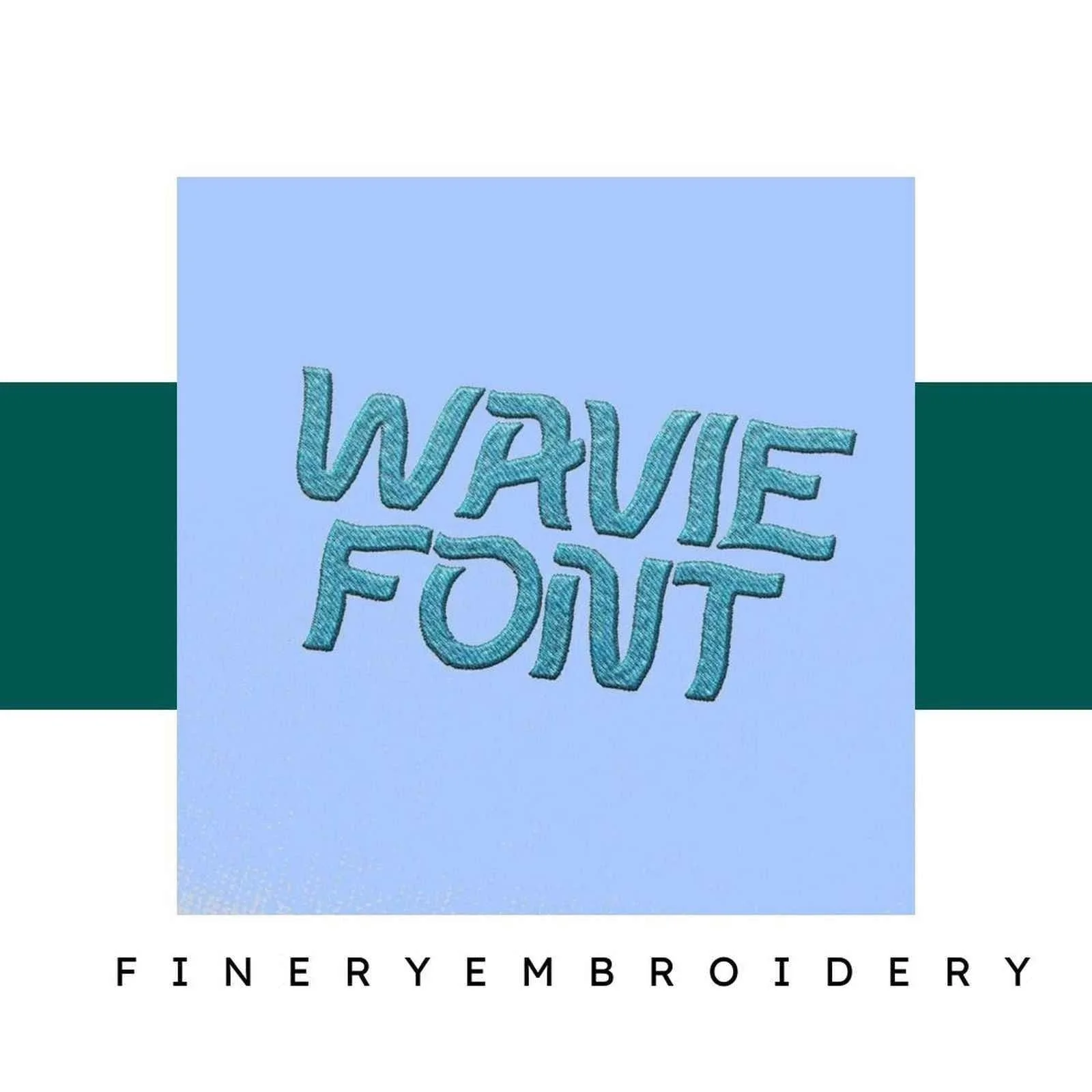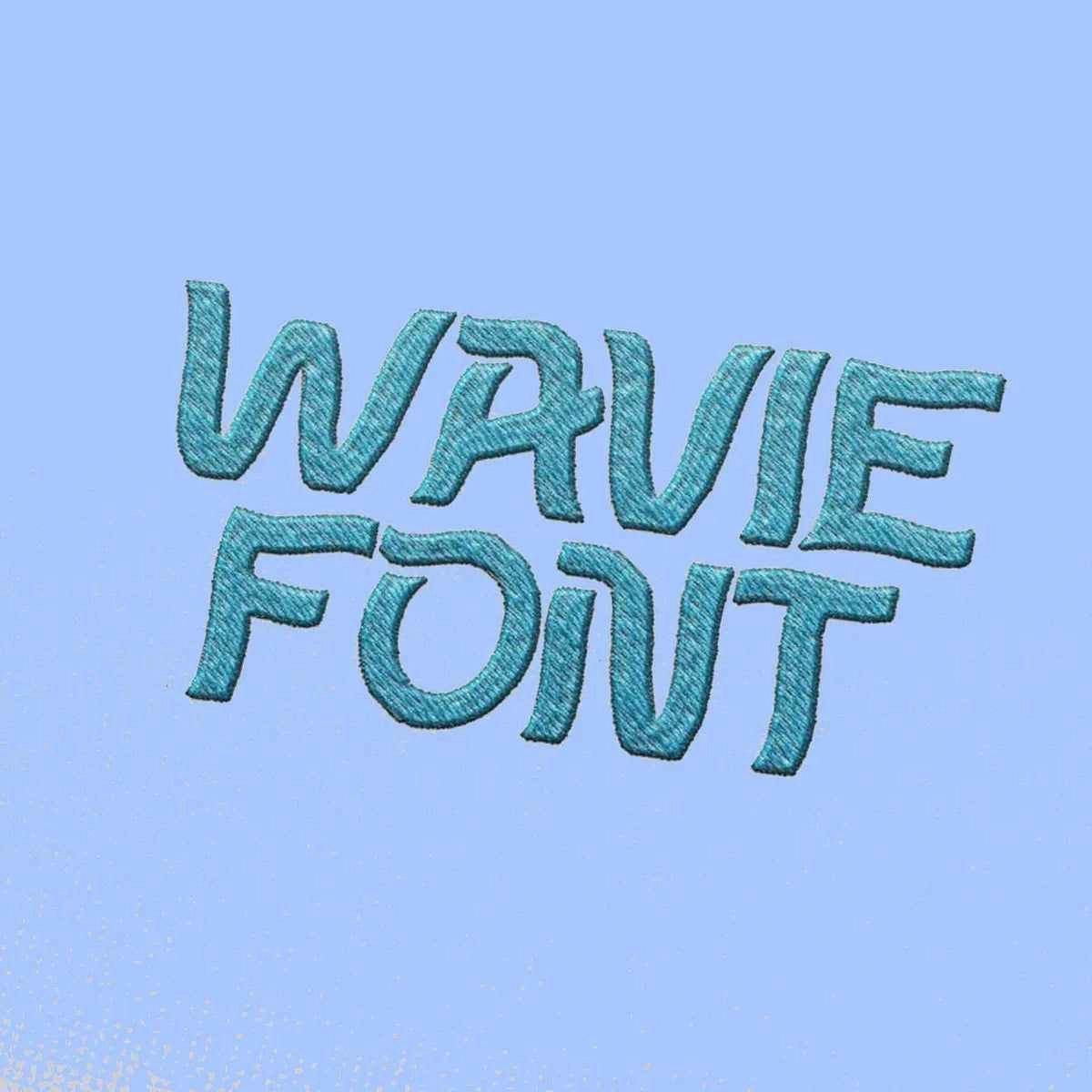
Wavie Embroidery alphabet Font Set
Unleash your creativity with the Wavie Embroidery Alphabet Font Set – a world of elegant designs awaits your embroidery machine!
Welcome to the enchanting world of the Wavie Embroidery Alphabet Font Set! This exquisite collection of elegant and high-quality embroidery designs is here to elevate your projects and inspire your creativity. Whether you’re embellishing clothing or personalizing gifts, this versatile font set will add a sophisticated touch to all your creations.
The Wavie Embroidery Alphabet Font Set is meticulously crafted to provide you with unique and intricate designs. With every letter, you get an artistic expression that enhances your projects, giving them a refined look that stands out. Imagine the delight of seeing your initials or favorite quotes beautifully rendered in this elegant font—it's a true game changer!
The possibilities with the Wavie Embroidery Alphabet Font Set are endless! Use it to personalize clothing, create stunning home décor, or craft memorable gifts for loved ones. This set is perfect for custom pieces that reflect your personality or that of the recipient. No matter the project, your creativity will shine through with these sophisticated designs.
At FineryEmbroidery, we understand the joy of bringing your embroidery dreams to life. We’ve digitized the Wavie Font Set with care, ensuring each design flows seamlessly with your embroidery machine. We remember the first time we used this elegant font—it was a delightful experience watching the initials of a loved one transform into a beautiful keepsake!